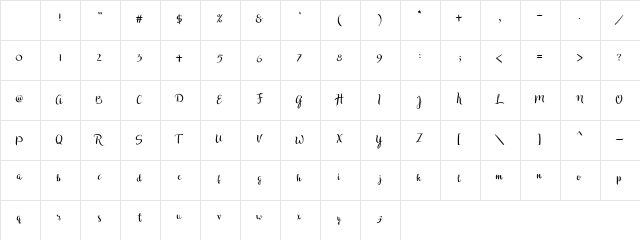
Complete Druchilla glyph index. Displaying only characters natively supported by Druchilla font.
Druchilla is a composed and adaptable typeface that performs quietly and consistently across a wide range of design contexts.
Who designed the Druchilla font?